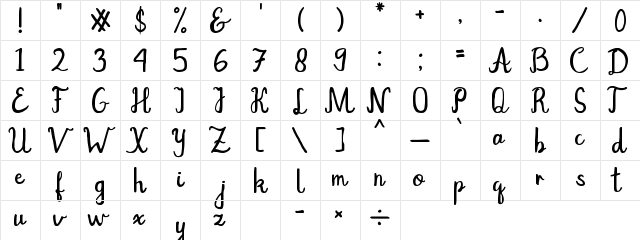
rocther script Regular
Design Context for rocther script Typeface
rocther script brings a calligraphic fluidity to the page — its connecting strokes and expressive curves give it an unmistakably human quality.
Font Pairing: Combine rocther script with a simple geometric sans for maximum contrast — the tension between flowing curves and clean structure is a classic typographic pairing.
Pro Tip: Use rocther script for short runs of text — names, titles, or taglines. Extended body copy in script faces tires the eye quickly.